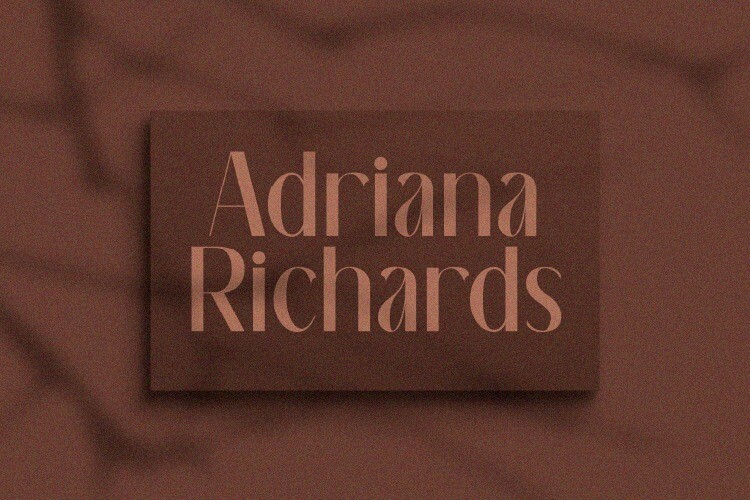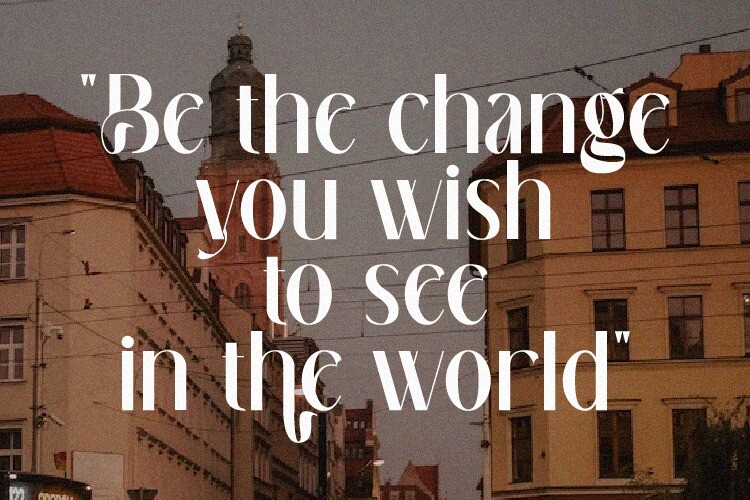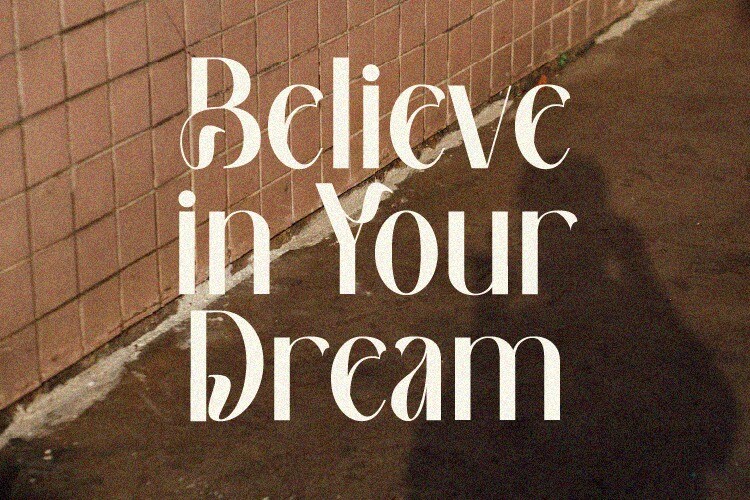
Banegsa Serif Font is a modern classic serif style font with unique curves that combine straight, rounded, and sharp lines. Its elegant and cool look makes it the perfect choice for logos, branding, invitations, stationery, wedding designs, social media posts, and so much more. Banegsa Font is PUA encoded which means you can access all of the glyphs.